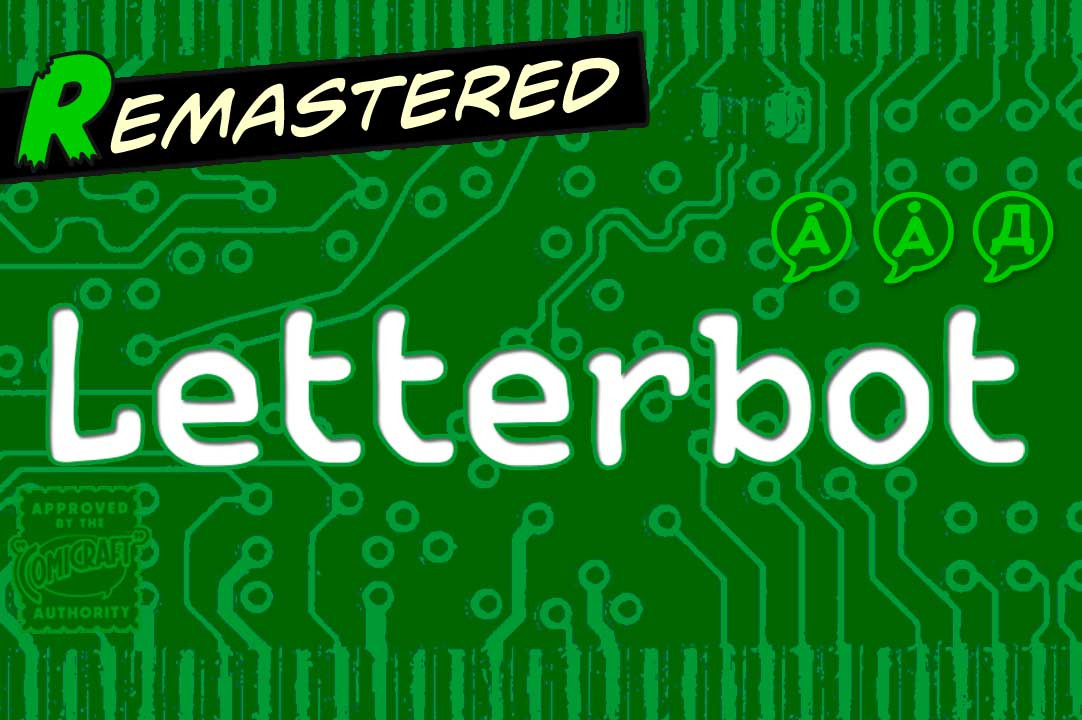
Letterbot - a comic book robot font
"If you prick me, do I not bleed? If you tickle me do I not laugh? If you poison me do I not DIE? And if you wrong me shall I not REVENGE? I am not a TYPEWRITER! I am not a MACHINE! I am -- NOT -- JUST -- a lettering ROBOT! I -- AM -- A -- HUMAN -- BEING!"
Having trouble with YOUR lettering artist? LETTERBOT is here to help. Take all the fuss and muss out of dealing with a real person and install this helpful and responsive robotic font. It has no opinions of its own and will assist you in the lettering of your comic without all that tedious human interaction which lettering artists seem to think they're entitled. Designed by John Roshell.*
*Now obsolete.